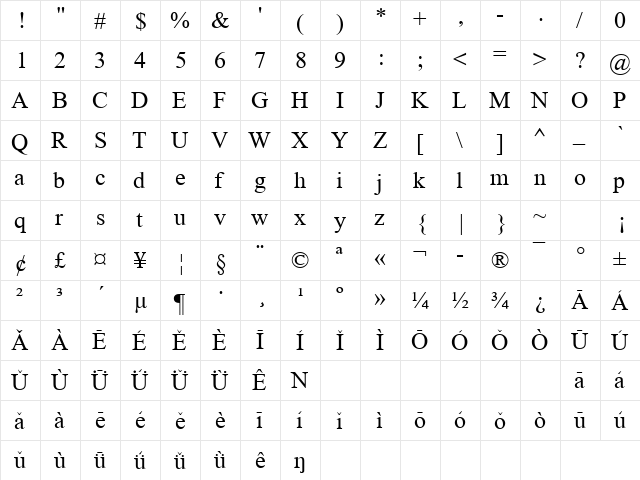
TBML Pinyin Regular
Design Context for TBML Pinyin Typeface
TBML Pinyin takes a measured approach to typography — its balanced proportions and neutral character make it a reliable workhorse for both digital and print work.